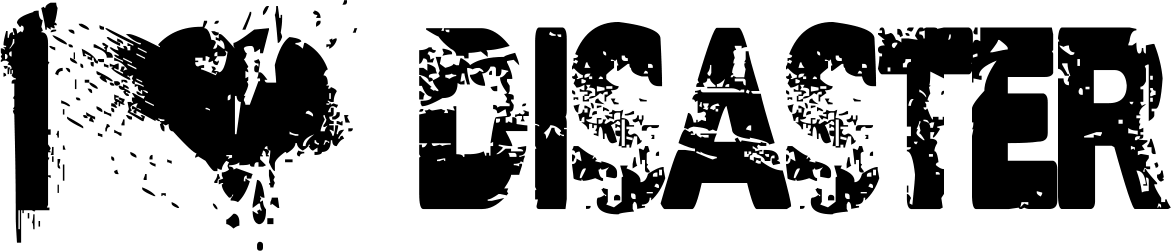
I Love Disaster Font
Go with this destroy font and make your layouts ten times better. I Love Disaster font is damaged enough to share a violent mood. You can use it for newspapers, criminal books, movie covers, and more of the same. Just keep in mind, that this font doesn’t contain small characters. Browse RB to find more.
This is a cool font. Upper Case is ultra distressed, lower case is a cleaner distress. Very easy to use.